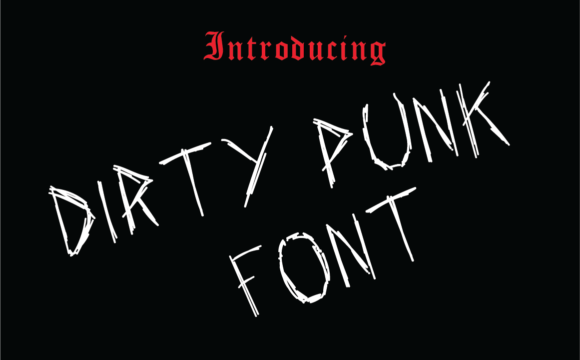
Ignite your designs with the rebellious spirit of Dirty Punk, a sans serif font family that oozes raw energy and untamed creativity. Its unapologetically grungy aesthetic and chaotic nature will captivate your audience, leaving an unforgettable impact.
Unleash your inner renegade with Dirty Punk, the font that embodies the untamed spirit of rock 'n' roll. Its rough edges and rebellious strokes will add an edgy charm to your designs, whether you're creating posters, branding materials, or social media graphics. Break free from the mundane and embrace the beauty of chaos with Dirty Punk.
Say goodbye to boring, predictable fonts and embrace the allure of Dirty Punk, a font that dares to be different. Its imperfect beauty and raw energy will set your designs apart, capturing the attention of those who appreciate the unconventional. Let your creativity run wild and explore the limitless possibilities that Dirty Punk offers.
Transport yourself to the electrifying atmosphere of a rock concert with Dirty Punk, the font that embodies the untamed energy of live music. Its dynamic glyphs will add a touch of rebellion and excitement to your designs, making them leap off the page. Unleash the rockstar within you and let Dirty Punk amplify your message with its captivating presence.
Dirty Punk is not just a font; it's a statement. A declaration of your individuality and your refusal to conform. Embrace the raw, the untamed, and the unapologetically real. Let Dirty Punk be your weapon of choice in the battle against blandness.